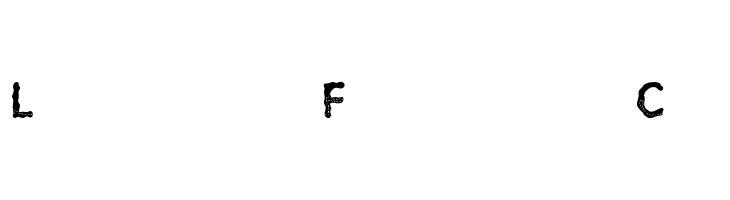
A rugged, textured font with a hand-crafted, vintage appearance.
A bold, playful font with a bubbly, hand-drawn texture.
A bold, playful font with a hand-drawn, textured style.